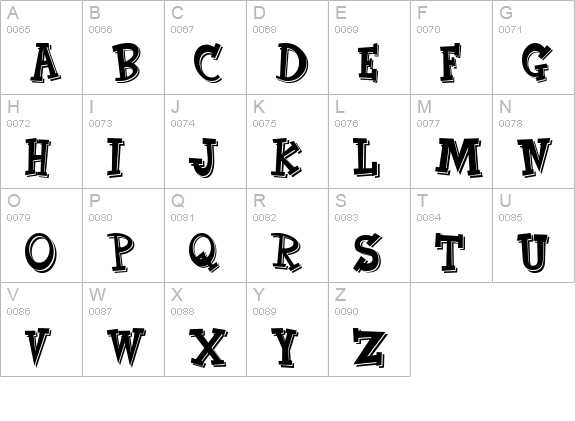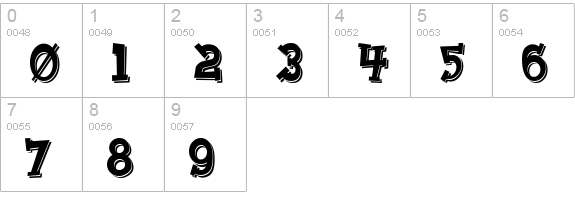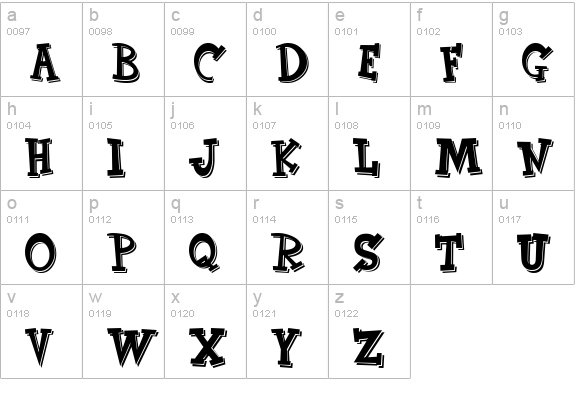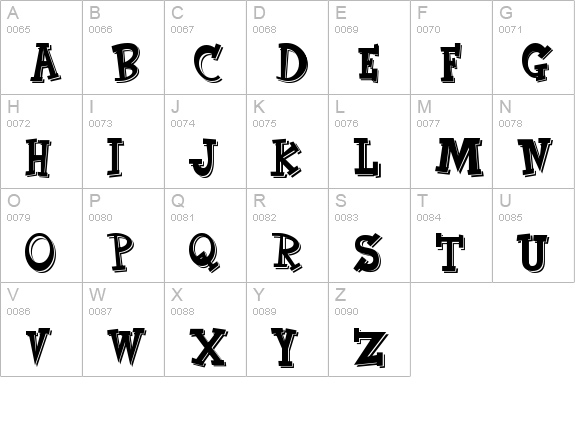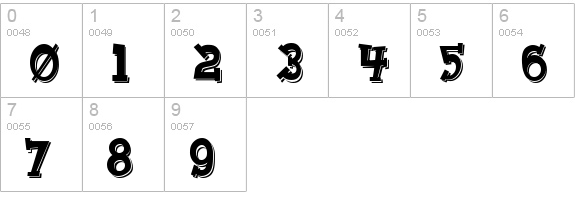
CornFed Font Details
Introducing CornFed font - a charming and rustic typeface that exudes warmth and nostalgia. Inspired by the simplicity of rural life, this font features subtle imperfections and hand-crafted details that give it a unique and authentic feel. With its bold strokes and playful curves, CornFed is perfect for adding a touch of down-home charm to your designs. What sets CornFed apart is not just its rustic appeal, but also the fact that it is completely free to download. That's right - you can get your hands on this delightful font at FontsMarket.com without spending a dime. Whether you're working on a branding project, a greeting card, or a social media graphic, CornFed is sure to bring a touch of warmth and personality to your work. So why wait? Download CornFed font today and add a dash of rural charm to your designs!